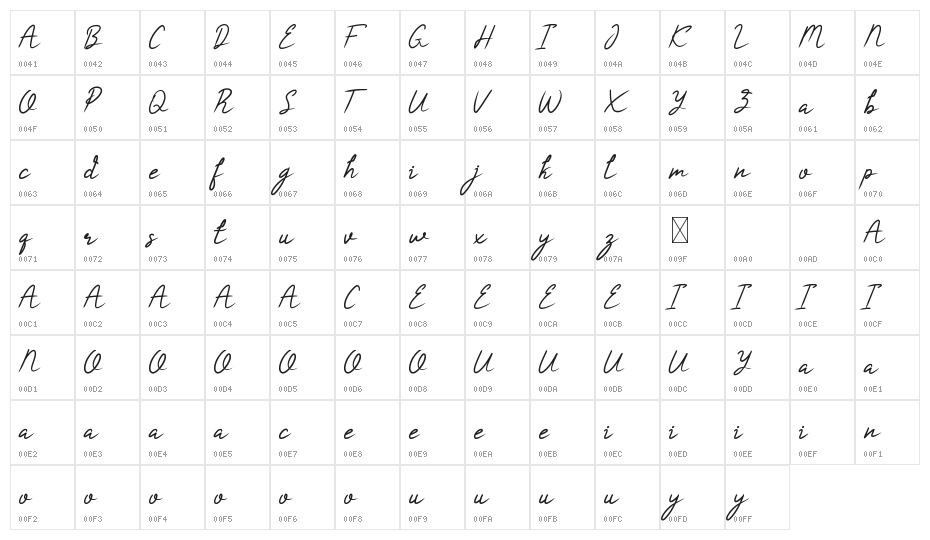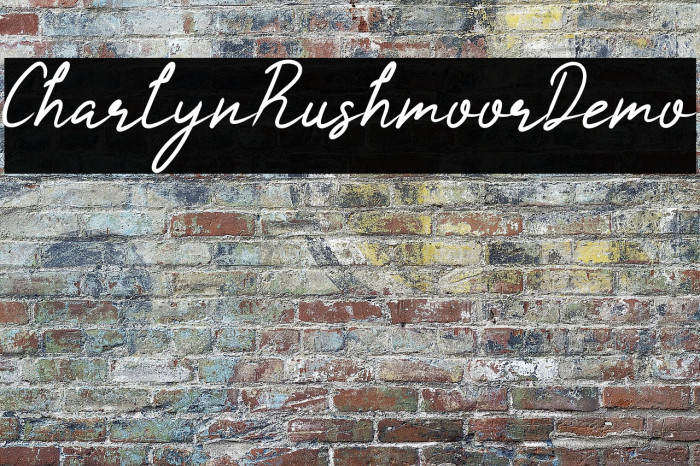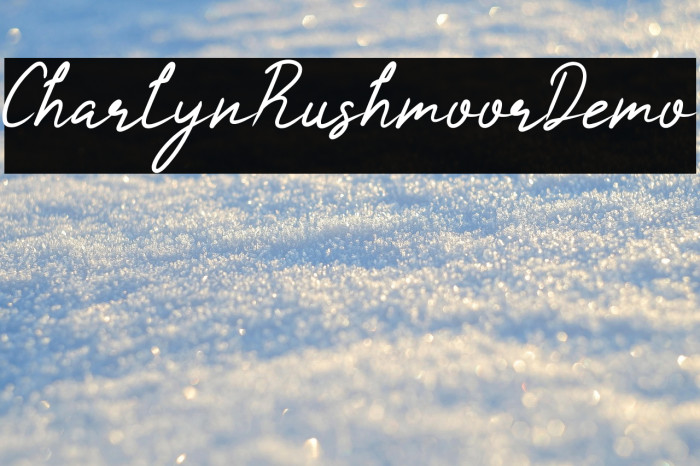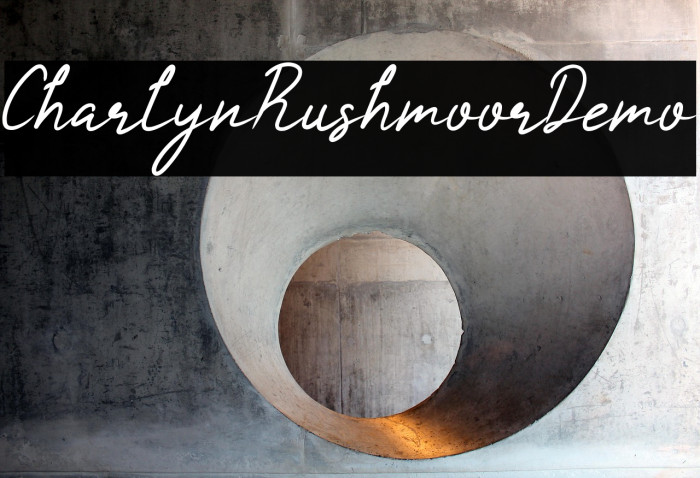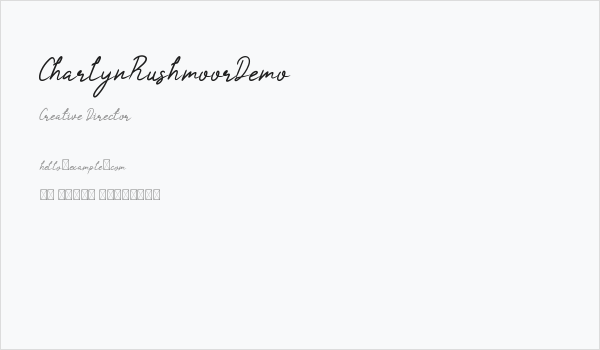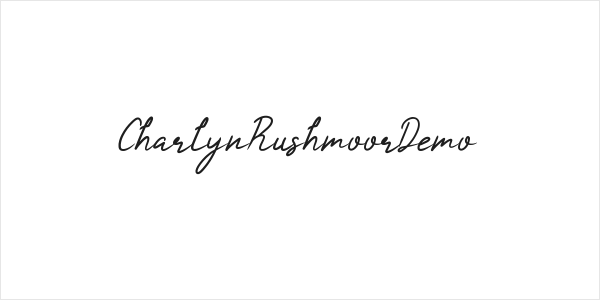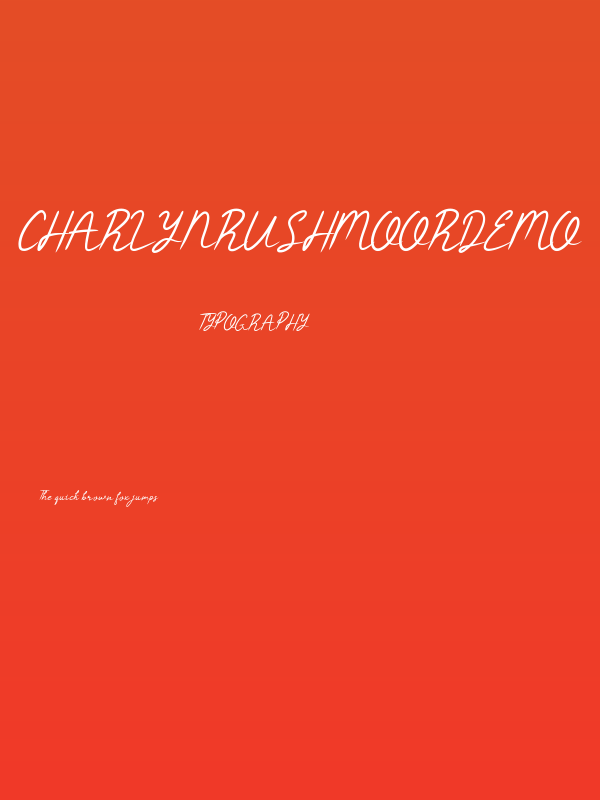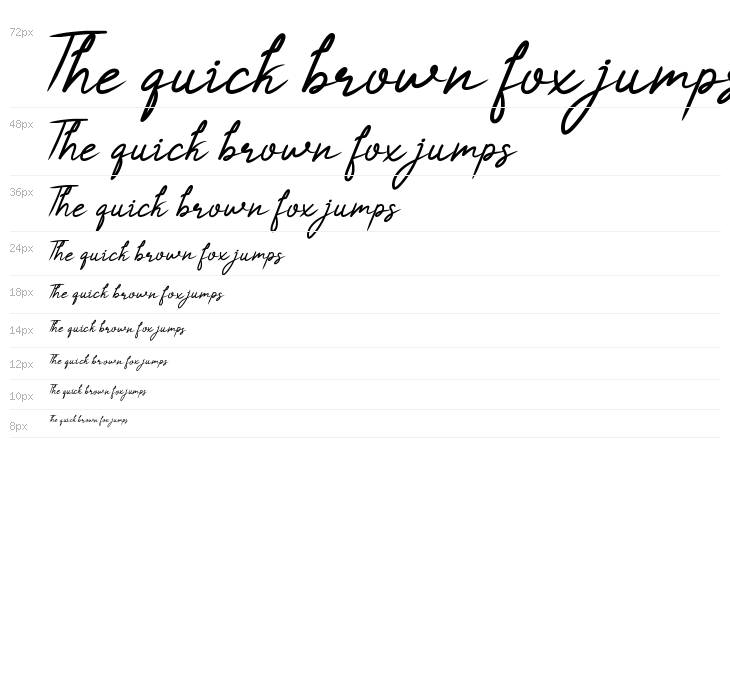
CharlynRushmoorDemo Font
CharlynRushmoorDemo Description
This font features an elegant and flowing script style, characterized by its smooth, cursive letterforms that mimic the fluidity of handwriting. The uppercase letters are slightly more structured, while the lowercase letters exhibit a graceful, connected style. The strokes are consistent in width, providing a harmonious and balanced appearance. The font exudes a sense of sophistication and charm, making it ideal for projects that require a personal touch. Its legibility is maintained despite the decorative nature, ensuring readability across various applications.
Overall StyleElegant, Decorative
Use CaseLogos, Invitations, Personal Branding
Proposed ProjectsIdeal for wedding invitations, greeting cards, personal branding, and elegant packaging designs.